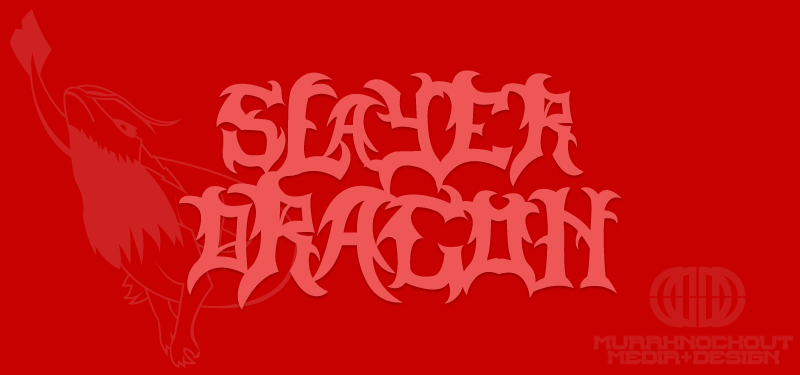
Preview and download Slayer Dragon Font. Created by MuraKnockout Media + Design in Gothic Modern styles with 100% Free license.
Check out my new Font Blog to stay up to see when I release new fonts! http://murafonts.blogspot.com/ ----------------------- A font comissioned by my good friend and author Rick Austinson for his upcoming Consecution Books series. This is a Medieval font for a map. This font is intended to look both Old, Demonic, and Wicked. Kind of Fantasy with a slight Graffiti flair. Check out the book at http://thecoursebooks.com/ This is free to do with whatever you wish, personal or commercial. Just don't claim ownership, sell it, redistribute it, or be a jerk with it. It might be cool if you use the font to either credit MuraKnockout Media or Michael Muranaka, or show me how you used it! Enjoy! |